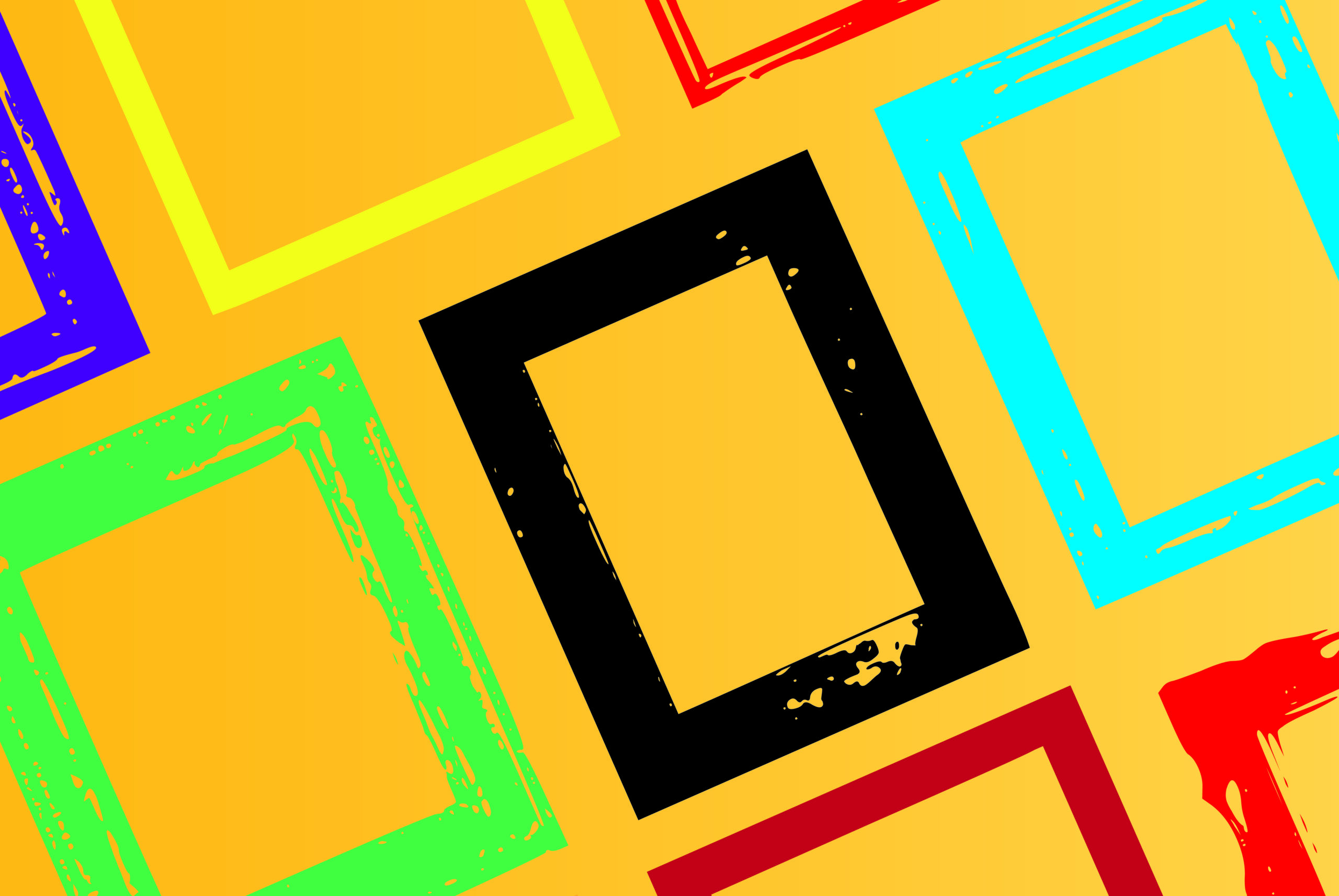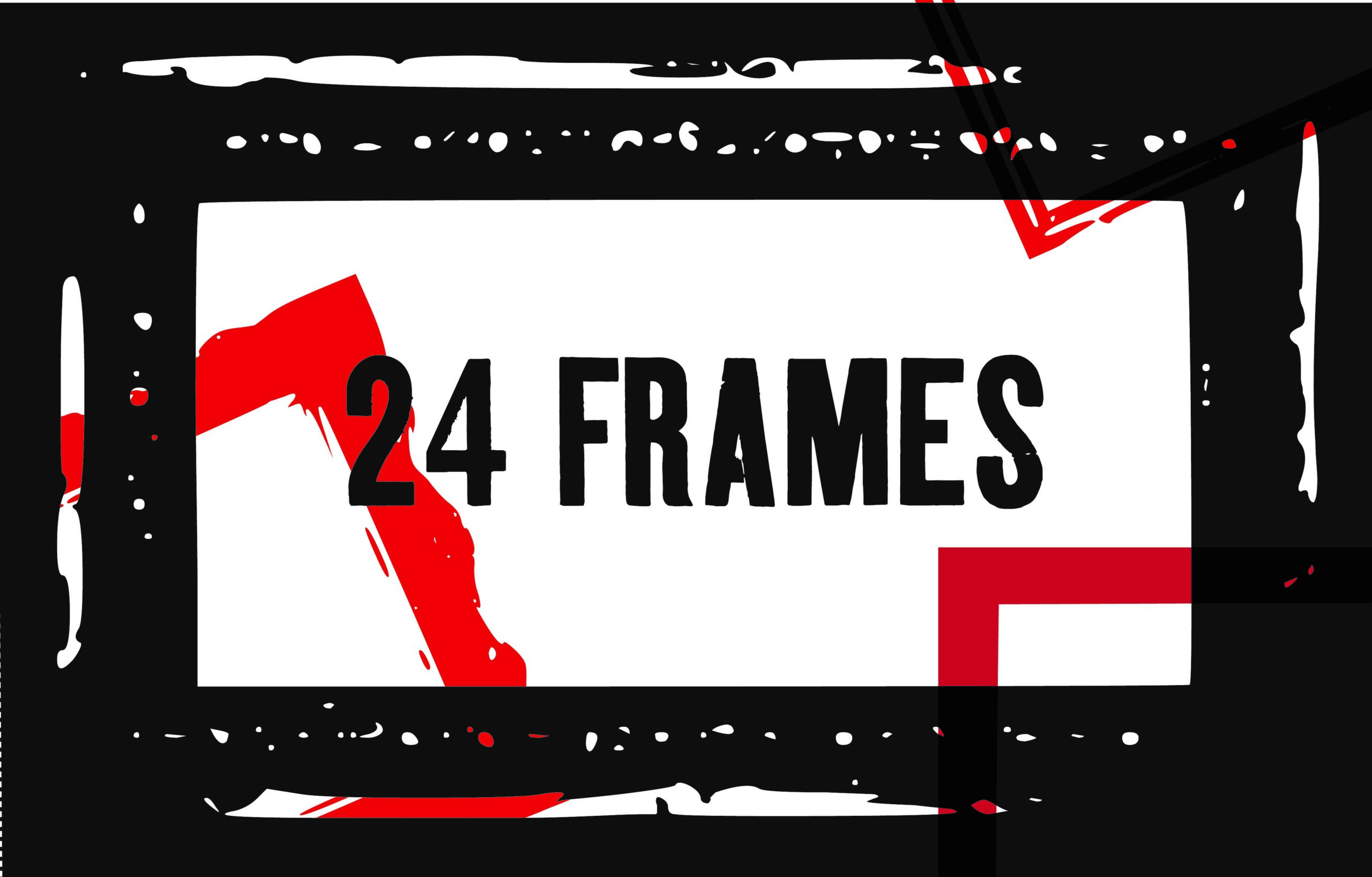
Framed Font
About Framed Font
A versatile collection of frames in both portrait and landscape orientations, these designs are sure to make an impact. With a wide range of frame options, you can easily combine them with images, icons, or graphics to create stunning compositions.
The frames in this collection are perfect for various applications, whether you want to display them as prints, posters, or canvas in your home. They offer a cost-effective alternative to traditional wooden, plastic, or glass frames. Not only are they affordable, but they also bring an extra graphical style to your artwork.
Print them large for eye-catching posters featuring your family or cherished memories. The frames will beautifully accentuate the photos, adding a touch of elegance and sophistication. Alternatively, you can print them on smaller items like mugs and keyrings for a personalized touch.
One of the advantages of using these frames is their versatility. You can mix and match different frames to create unique compositions that suit your style and preferences. Combine them with images, icons, or graphics to create collages or themed collections. The possibilities are endless, allowing you to unleash your creativity and create stunning visuals.
Whether you’re looking to create a gallery wall in your living room, add a decorative touch to your bedroom, or create personalized gifts for your loved ones, these frames provide a cost-effective and stylish solution. They allow you to showcase your favorite photos or artworks in a visually appealing way.
In summary, this collection of frames offers a wide range of options for adding a stylish and graphical touch to your prints, posters, and canvas. With their versatility, you can create unique compositions that suit your style and preferences. From large-scale posters to small personalized items, these frames provide an affordable and visually appealing alternative to traditional frames. Let your creativity soar as you explore the possibilities and make a statement with these frames.